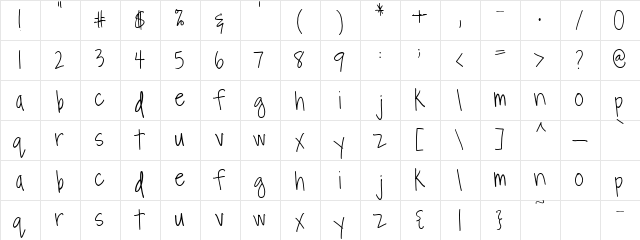
2peas scrapbook Regular
| Designer | Amy Grendell |
Design Context for 2peas scrapbook Typeface
2peas scrapbook is a composed and adaptable typeface that performs quietly and consistently across a wide range of design contexts.